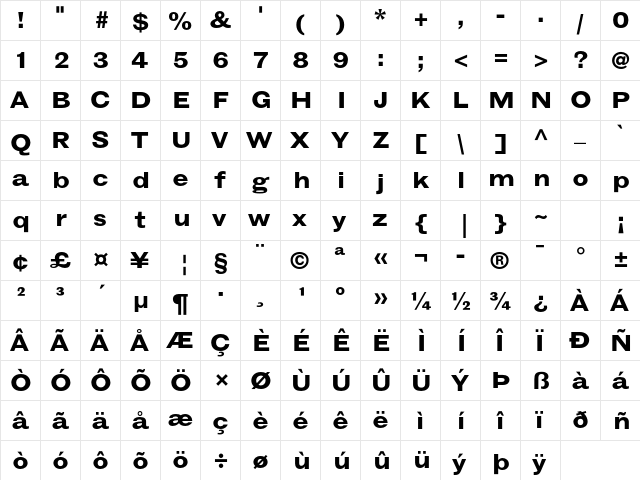
Grotesque Disp MT Std Bold Ext
Design Context for Grotesque Disp MT Std Typeface
Grotesque Disp MT Std offers clean, dependable letterforms without strong stylistic allegiance, making it a practical choice for designers who need flexibility. Its bold stroke weight gives it real presence on the page.